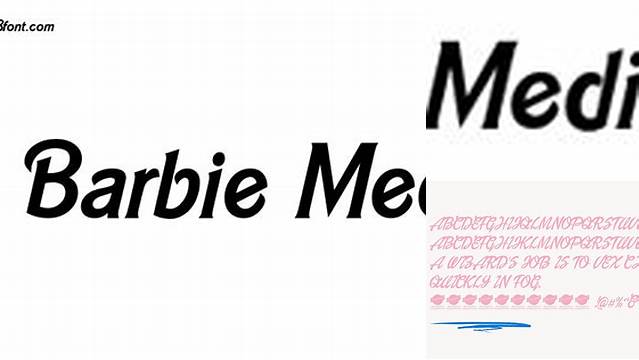
Barbie Medium Italic Font: Free Download & Usage Guide
Understanding the Allure of Barbie Medium Italic
The Barbie Medium Italic font is instantly recognizable, guys. It’s all about that glamorous, playful, and sophisticated look that screams Barbie. This isn't just any font; it's a piece of pop culture history! Think of all the iconic Barbie logos, packaging, and advertisements you've seen over the years – many of them utilize a font very similar, if not identical, to this design. The medium weight gives it a nice presence without being too heavy, while the italic slant adds a dynamic and elegant flair. It's perfect for invitations, party decorations, social media graphics, or anything that needs a touch of pink-tastic personality. Its versatility lies in its ability to evoke a sense of fun and fashion, making it a go-to choice for many creative projects that aim for a memorable and aesthetically pleasing result. When you use the Barbie Medium Italic font, you're not just adding text; you're adding a whole mood and a brand identity that resonates with joy and aspirational living. The curves are smooth, the serifs (if any, depending on the exact version) are subtle yet defining, and the overall impression is one of effortless chic. It’s the kind of font that makes even a simple word look like it belongs on a designer label. This distinct character is what makes it so sought after, and understanding this allure is the first step to using it effectively in your own creations. We'll explore how to capture that magic later on.
Exploring Barbie Font Alternatives for Free Download
Since finding the exact Barbie Medium Italic font for free, especially for commercial use, can be a challenge, let's talk about some awesome alternatives, shall we? Plenty of talented font designers have created fonts that capture that signature Barbie aesthetic – the bubbly curves, the chic slant, the overall playful yet polished feel. You can find these on various font-sharing platforms. Look for keywords like 'girly font,' 'script font,' 'fashion font,' or 'retro italic font.' Some fonts might have a slightly different name but mimic the style so well, you’d hardly notice the difference. For instance, fonts that are generally described as 'script' or 'display' fonts with a clear, slightly rounded, and italicized form are good candidates. Think about fonts that have a bit of a flourish, a sense of movement, and an inherent sense of fun. Many of these alternatives are available for free download for personal use, allowing you to inject that Barbie magic into your invitations, party favors, digital scrapbooking, or social media posts without any cost. Always double-check the license agreement accompanying each font. While many are generous with personal use, commercial endeavors often require a separate license purchase. By exploring these alternatives, you're not only getting the look you want but also discovering new favorite fonts and supporting independent designers. It’s a win-win situation, guys!
How to Use Barbie Medium Italic Font Effectively
Alright, let's get creative! Using the Barbie Medium Italic font, or any of its fantastic look-alikes, is all about channeling that vibrant, fashion-forward spirit. First off, consider the context. Is your project aiming for a fun, party vibe? Or perhaps a more sophisticated, fashion-editorial feel? This font excels at both. For party invitations or birthday cards, pair it with bright colors, maybe some glittery elements, and keep the text concise and punchy. Think: "You're Invited to a Totally Fabulous Party!" For social media graphics, especially for lifestyle bloggers or small businesses with a feminine brand, it can add a touch of personality. Use it for headings, quotes, or calls to action. Bold and italic variations can add depth. A key tip is not to overuse it. While it's super eye-catching, too much of a good thing can be overwhelming. Use it strategically for key phrases or titles, and pair it with a simpler, complementary font for body text. This creates a balanced and professional look. Imagine using Barbie Medium Italic for your main title and a clean sans-serif font for the rest of the details – chef’s kiss! Remember the medium weight is great for readability, but the italic slant means it might be less suitable for very long paragraphs. Keep it for display purposes where impact is key. Experiment with colors too! While pink is the obvious choice, this font can look stunning in gold, silver, black, or even a vibrant turquoise. Let your imagination run wild!
Designing with Barbie Medium Italic: Tips and Tricks
Guys, let's talk practical design application for this iconic font. When you're working with the Barbie Medium Italic font, think about layering and combination. It pairs exceptionally well with clean, simple fonts. A classic sans-serif or a minimalist serif can provide a grounding contrast to its playful elegance. This ensures your text remains readable while highlighting the Barbie font's unique character. For example, if you're designing a flyer for a special event, use the Barbie font for the event title – "Sparkle & Shine Birthday Bash" – and a font like Open Sans or Lato for the date, time, and location details. Another pro tip is to play with text effects. Subtle shadows, a slight glow, or even a metallic gradient can enhance the font's inherent glamour. However, remember the golden rule: less is more. You don't want to muddy the design. Consistency is also crucial. If you decide on a specific color palette or style for your Barbie font usage, try to maintain it across your project for a cohesive look. Are you making a digital invitation? Consider adding subtle animations like a gentle fade-in or a sparkle effect when the text appears. For print projects, ensure the font is high-resolution when you scale it up. A pixelated font looks anything but fabulous! Finally, always preview your design at the intended size. What looks great on a large monitor might appear different on a small phone screen. Test, test, test! This approach ensures your Barbie-inspired designs are not just pretty but also effective and professional, guys.
The History and Evolution of Barbie's Typography
It’s fascinating to think about how Barbie’s visual identity has evolved, and typography plays a massive role in that! The Barbie Medium Italic font we know and love isn't just a random design; it's deeply rooted in the brand's history. Since Barbie's debut in 1959, her look has consistently reflected the trends of the times, and that includes fonts. Early Barbie logos often featured a more classic, perhaps script-like, approach. As the brand matured and aimed for a more modern, glamorous, and accessible feel, the typography adapted. The iconic slanted style, often seen in variations of the Barbie logo, emerged as a powerful symbol of femininity, fashion, and fun. Think about the late 80s and 90s – that was a peak era for bold, distinctive logos, and Barbie's typography certainly kept pace. The shift towards the medium italic style offered a balance: it was undeniably stylish and eye-catching but remained legible enough for various applications, from toy packaging to animated series credits. This evolution shows how a brand consistently uses its visual elements, including fonts, to communicate its core values and connect with new generations of fans. While the exact font used might have been custom-designed or a heavily modified existing typeface, the essence of that Barbie Medium Italic – its flair, its confidence, its playful elegance – has remained a constant thread. Understanding this history helps appreciate why this particular style is so beloved and sought after, guys. It’s not just a font; it’s a piece of cultural iconography.
Iconic Barbie Logos and Their Font Choices
Let's take a stroll down memory lane and look at some of the most iconic Barbie logos and the typography that made them memorable. The primary Barbie logo, the one that often comes to mind, typically features the name